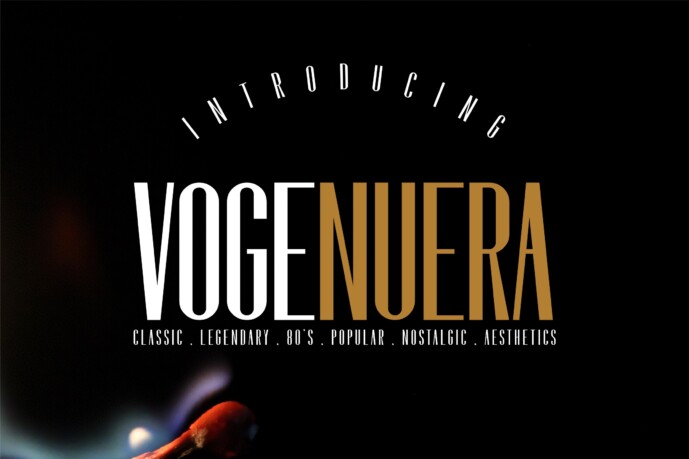
Vogenuera Font
Immerse yourself in the seamless blend of sans-serif sophistication and techno-contemporary charm, revealing itself in the form of this distinct font style. Made for distinctive inscriptions, this font affirms its exclusivity in areas like portfolios, framing official papers like certificates or diplomas, and accentuating income balance reports, owing to its elaborate thick-thin letterforms.
Unfold another expressive potential in product descriptions or attention-grabbing exclamations like “now!!!!” or captivating questions. Unearth deeper creative realms as this font reveals its versatility – imagine it gracing antique items, classic vehicles, or evoking elegance in horse racing themes. Its potential is limited only by what else the visionary designers may discover.